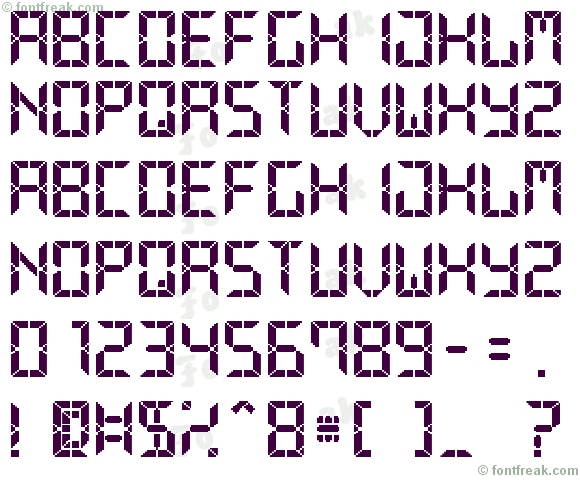
Advanced Pixel LCD-7
The Advanced Pixel LCD-7 font by Style-7 is a striking display typeface that embodies a unique blend of retro and modern aesthetics, making it an exceptional choice for various design projects. This font falls into the pixel category, characterized by its distinctive block-like structure that mimics the appearance of digital displays. The stroke weight is consistent throughout, lending a uniformity that enhances its legibility while creating a visually intriguing pattern. The font's spacing is carefully balanced, allowing for clarity even in bold applications, which is essential for digital or print media.
Advanced Pixel LCD-7 is particularly well-suited for a range of creative uses. Its futuristic appearance makes it an ideal choice for technology-related branding, including logos for software companies or tech startups. Additionally, this font works wonderfully for retro-themed video game graphics or promotional materials, evoking nostalgia while appealing to contemporary audiences. It also shines in event posters and flyers, especially for concerts or gaming events, where eye-catching typography is key. Small business owners can leverage this font for signage or menu designs, particularly in cafes or eateries aiming for a modern, tech-savvy vibe.